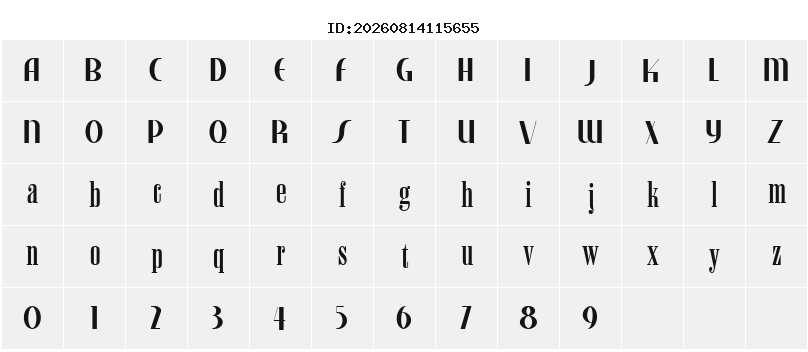
Studebaker Revised Preview
• Font Name: Studebaker Revised
• Full Font Name: Studebaker Revised
About Studebaker Revised.ttf
Studebaker Revised.ttf is a modern, elegant sans-serif font designed for ultimate readability and visual harmony. Perfect for branding, headlines, web design, and print materials.